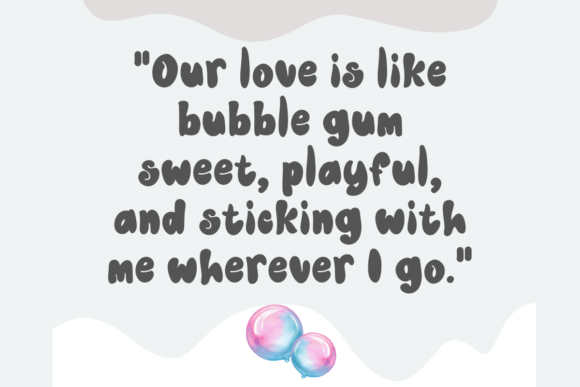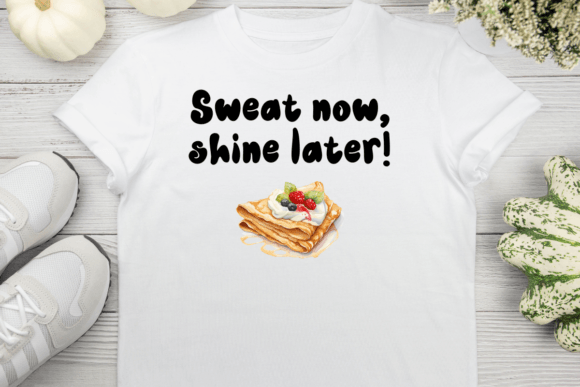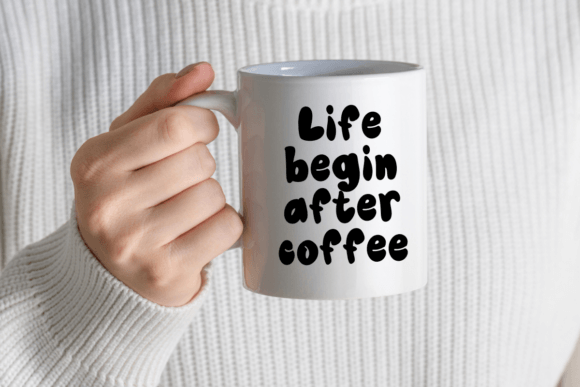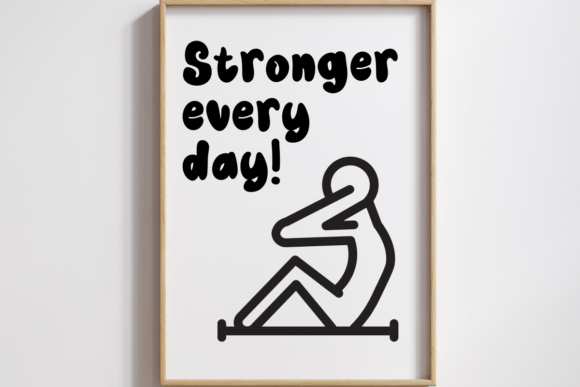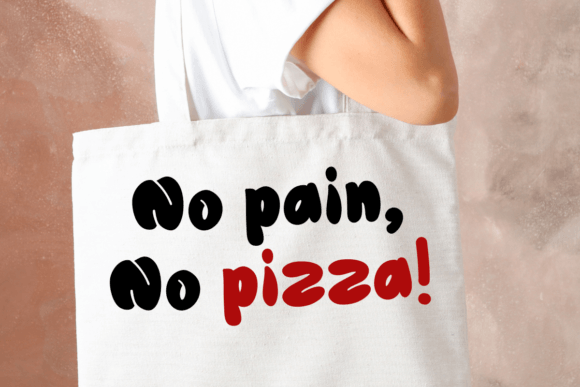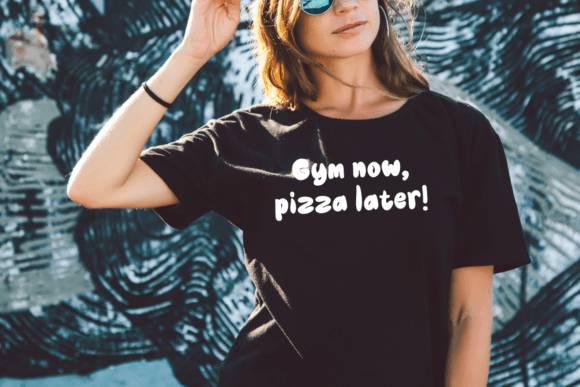
Bubble Gum Font: The Perfect Retro Handwritten Font for Digital Note-Taking and Creative Projects
Are you on the hunt for a font that adds a touch of playfulness and nostalgia to your digital creations? Look no further than the Bubble Gum Font! This retro handwritten font is making waves in the design community, and for good reason. Its versatility and charm make it an ideal choice for a wide range of projects, from digital note-taking to Procreate designs, blog posts, logos, branding, and so much more.
What is Bubble Gum Font?
Bubble Gum Font is a carefully crafted handwritten font that embodies the spirit of retro charm. Its unique and whimsical style is reminiscent of the bubblegum culture of the past, evoking memories of childhood nostalgia and carefree days. This font is designed to add a personal touch to your digital creations, making them stand out from the crowd.
Perfect for Digital Note-Taking
In the digital age, note-taking has become an essential part of our daily lives. With the rise of digital planners and journals, it’s easier than ever to stay organized and creative. Bubble Gum Font is the perfect addition to your digital note-taking arsenal. Its clear and legible design makes it easy to read, while its playful style adds a touch of personality to your notes.
One of the standout features of Bubble Gum Font is its versatility. This font can be used for a wide range of projects, including:
- Procreate designs: Add a touch of whimsy to your Procreate artwork with Bubble Gum Font.
- Blog posts: Use Bubble Gum Font to add a personal touch to your blog posts and make them more engaging.
- Logos and branding: Create a unique and memorable brand identity with Bubble Gum Font.
- Digital planners: Add a playful touch to your digital planners and make them more fun to use.
- Invitations and greeting cards: Create beautiful and eye-catching invitations and greeting cards with Bubble Gum Font.
- Photo albums: Add a personal touch to your photo albums and make them more special.
Why Designers and Crafters Love Bubble Gum Font
Designers and crafters alike are falling in love with Bubble Gum Font, and it’s easy to see why. Here are just a few reasons why:
- Unique style: Bubble Gum Font has a unique and distinctive style that sets it apart from other fonts.
- Easy to read: Despite its playful style, Bubble Gum Font is clear and easy to read.
- Versatile: Bubble Gum Font can be used for a wide range of projects, making it a great addition to any designer’s toolkit.
- Retro charm: Bubble Gum Font has a retro charm that is sure to evoke nostalgia and playfulness.
Tips for Using Bubble Gum Font
Here are a few tips for getting the most out of Bubble Gum Font:
- Use it sparingly: While Bubble Gum Font is playful and fun, it can be overwhelming if used too much. Use it sparingly to add a touch of personality to your designs.
- Pair it with other fonts: Bubble Gum Font pairs well with other fonts, such as sans-serif fonts. Experiment with different pairings to find the perfect combination.
- Experiment with colors: Bubble Gum Font looks great in a variety of colors. Experiment with different colors to find the perfect shade for your design.
In conclusion, Bubble Gum Font is a retro handwritten font that is perfect for digital note-taking and a wide range of creative projects. Its versatility, unique style, and retro charm make it a great addition to any designer’s toolkit. Whether you’re a designer, crafter, or simply someone who loves to create, Bubble Gum Font is sure to inspire and delight. So why not give it a try and see what amazing creations you can come up with?